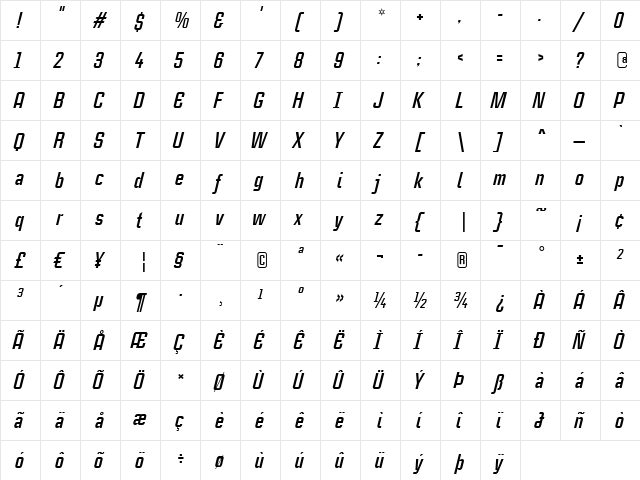
CaseStudyNoOne LT Bold Italic Font Preview
Design Context for CaseStudyNoOne LT Typeface
CaseStudyNoOne LT takes a measured approach to typography — its balanced proportions and neutral character make it a reliable workhorse for both digital and print work. Its italic angle brings a sense of urgency and motion to the letterforms. The heavy weight commands attention and anchors typographic hierarchies.
Pro Tip: Try CaseStudyNoOne LT for annotation and caption copy alongside an upright companion — the contrast in angle creates a dynamic but ordered typographic system.